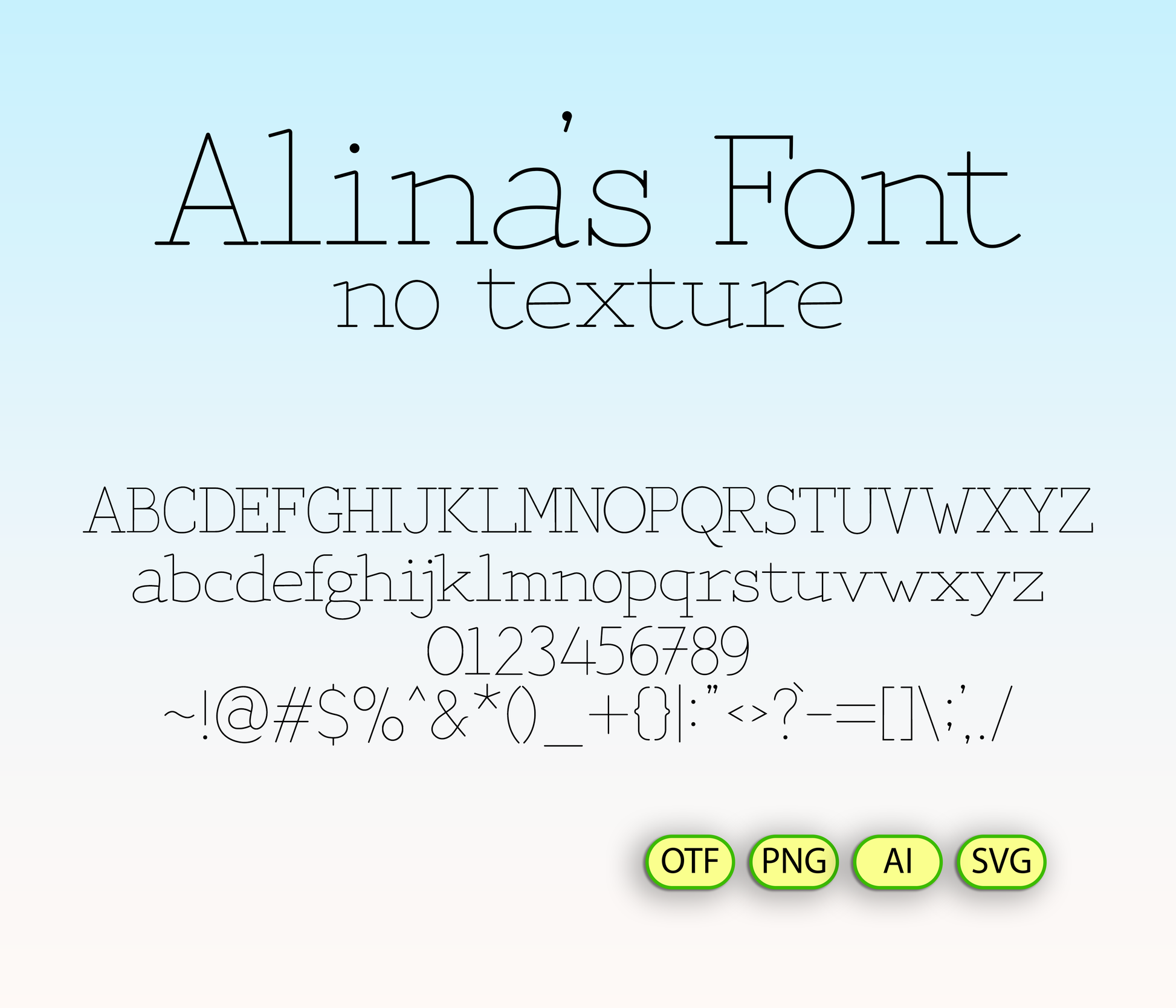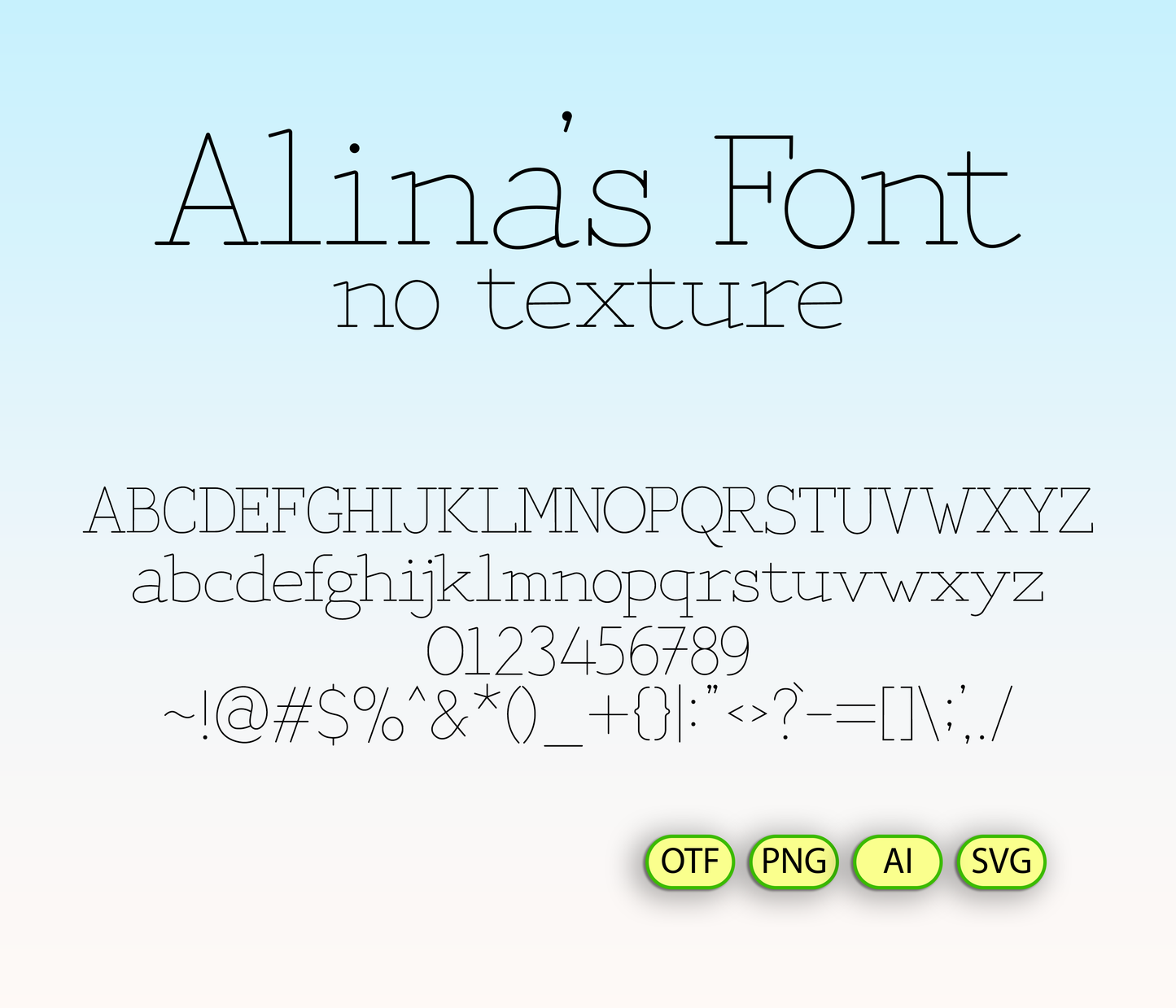
Authentic Typewriter – Skinny Fashioned Font
Discover the refined elegance of slender mechanical precision with our Authentic Typewriter font, capturing the essence of delicate typing craft and sophisticated correspondence styling. Designed for fashion-forward designers, elegant content creators, refined aesthetic specialists, and stylish brand developers, this font delivers the graceful, streamlined character of sleek typing equipment to your creative projects. Create chic promotional materials, fashionable merchandise, or sophisticated digital content with the polished, contemporary spirit of modern typewriter elegance and slender design sophistication.
Our Authentic Typewriter font features slender, elegant letterforms and refined proportions that reflect the stylish yet functional aesthetic of contemporary typing design and fashionable mechanical precision. Perfect for:
- Fashion Events: Create sophisticated runway invitations, boutique signage, and stylish gathering materials with contemporary elegance and refined appeal
- Modern Design: Excellent for trendy brand identity, fashion magazine layouts, and chic product packaging that celebrates sleek sophistication
- Digital Media: Enhance fashion blogs, style websites, and trendy social media with headers that express contemporary refinement and elegant simplicity
- Creative Content: Add authentic character to fashion photography, style guides, and promotional materials for elegant or fashion-themed events
- Personal Projects: Bring stylish charm to personal correspondence, fashion journals, and artistic endeavors inspired by the aesthetics of contemporary elegance and refined design